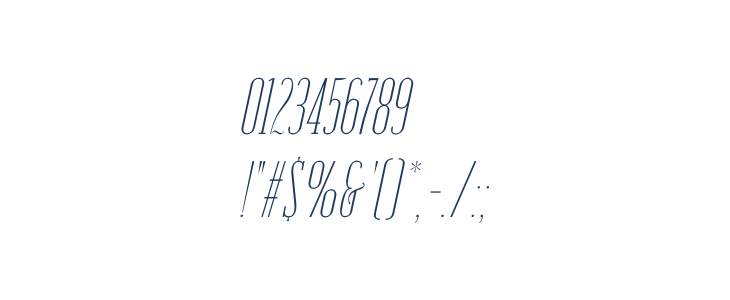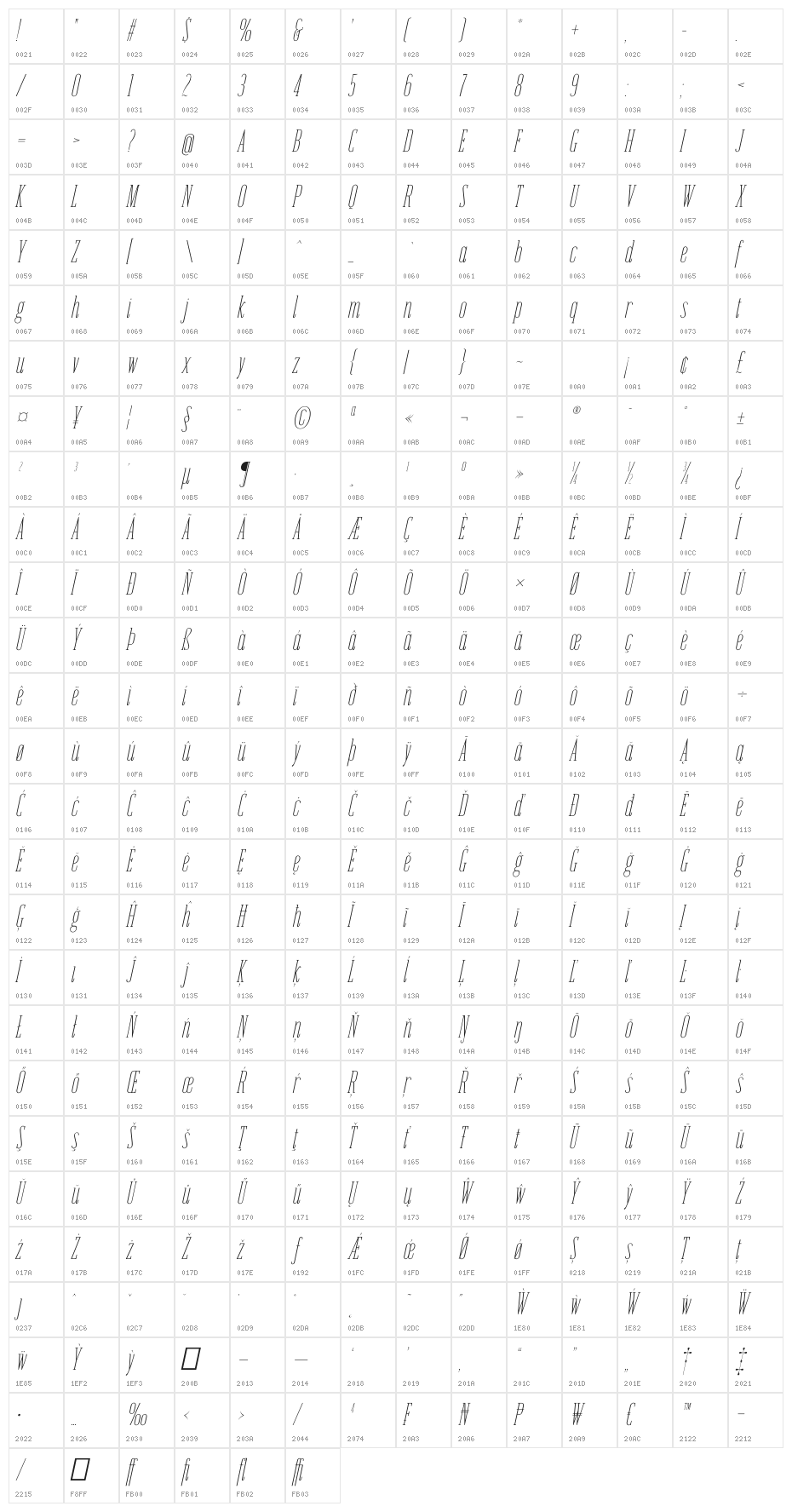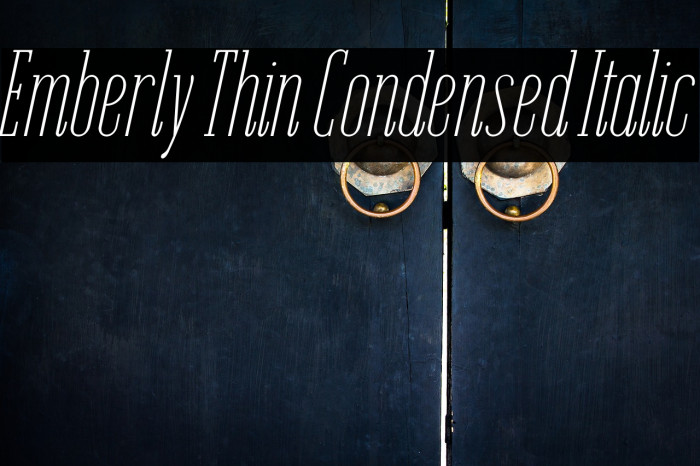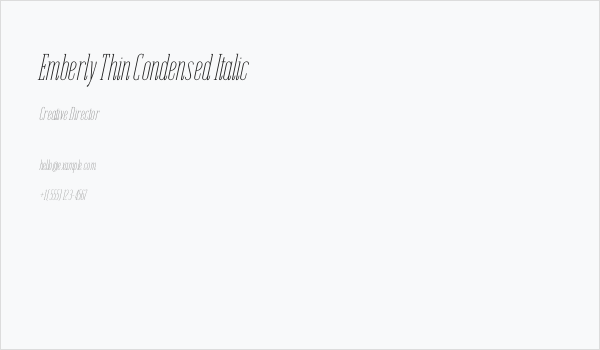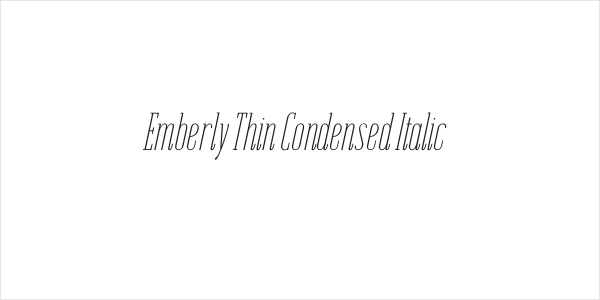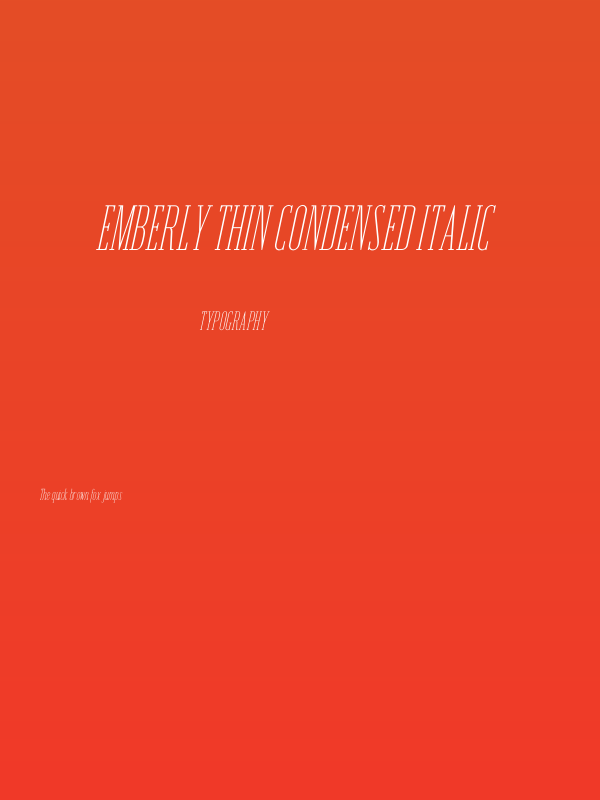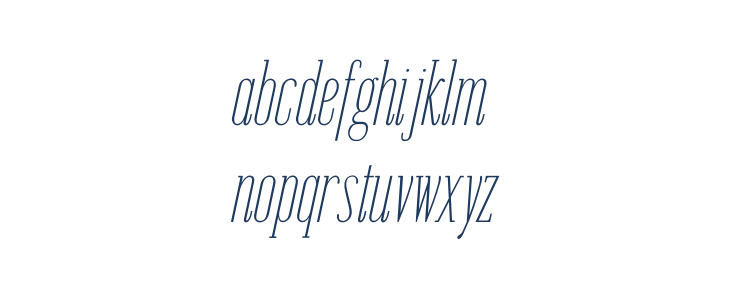
Emberly Thin Condensed Italic Font
Emberly Thin Condensed Italic Description
This typeface features a sleek and elegant design with a thin and condensed structure. The italicized form adds a dynamic and sophisticated touch, making it suitable for modern and stylish applications. The characters are elongated and slightly slanted, providing a sense of motion and fluidity. The font maintains a consistent stroke width throughout, contributing to its refined appearance. The spacing between characters is tight, enhancing the condensed nature of the font. It is well-suited for projects that require a touch of elegance and modernity.
| Use Case | Headlines, Logos, Editorial design |
| Proposed Projects | Ideal for fashion magazines, luxury branding, elegant invitations, and modern editorial designs. |